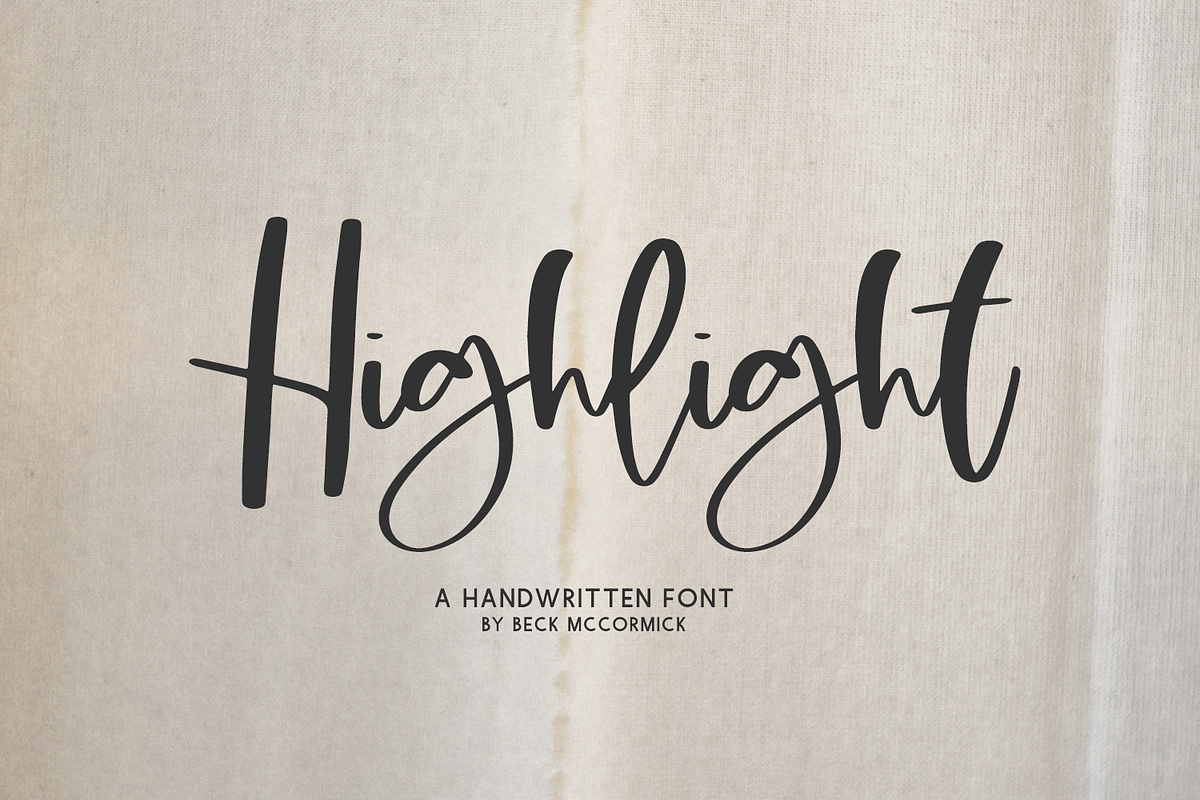
Highlight Script Font Free Download is a smooth and stylish handwritten typeface that captures the elegance of brush lettering with a modern twist. Perfect for logos, wedding invitations, product packaging, social media content, and lifestyle branding, this font adds a personal and sophisticated flair to any project.
Its flowing curves and natural stroke variations give it a polished yet authentic look. With included ligatures and stylistic alternates, Highlight Script offers flexibility for creating beautifully customized typography.